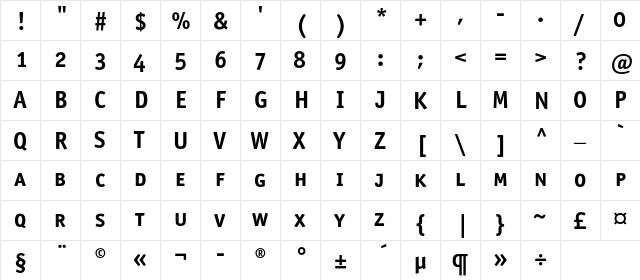
OfficinaSansBoldSCC Regular
Design Context for OfficinaSansBoldSCC Typeface
OfficinaSansBoldSCC offers clean, dependable letterforms without strong stylistic allegiance, making it a practical choice for designers who need flexibility. Its bold stroke weight gives it real presence on the page.